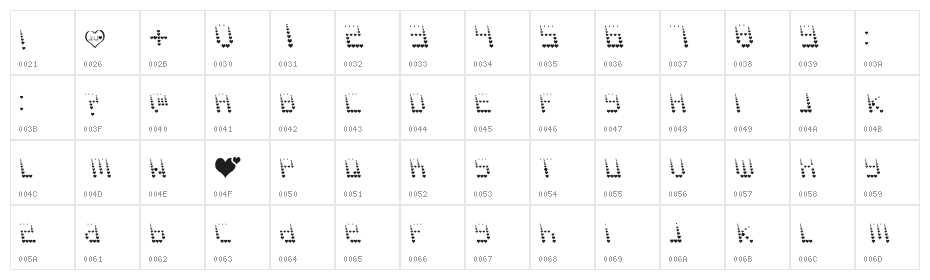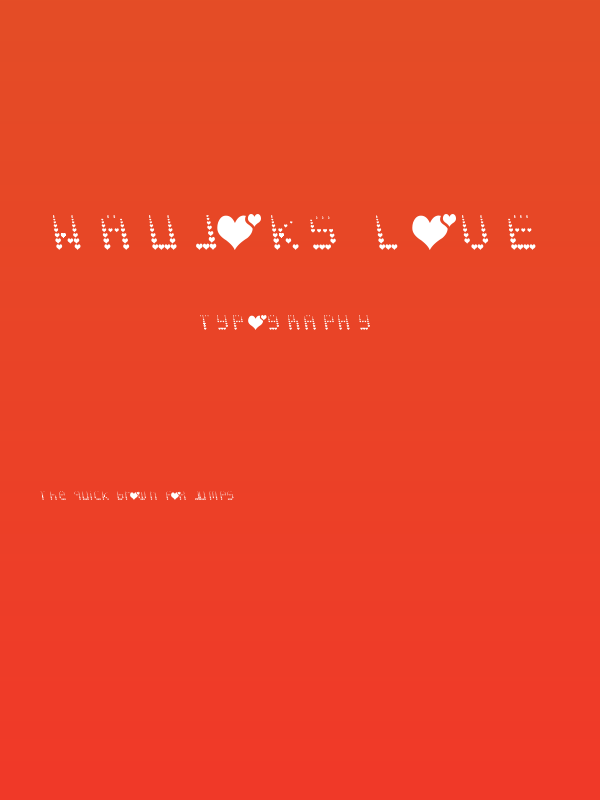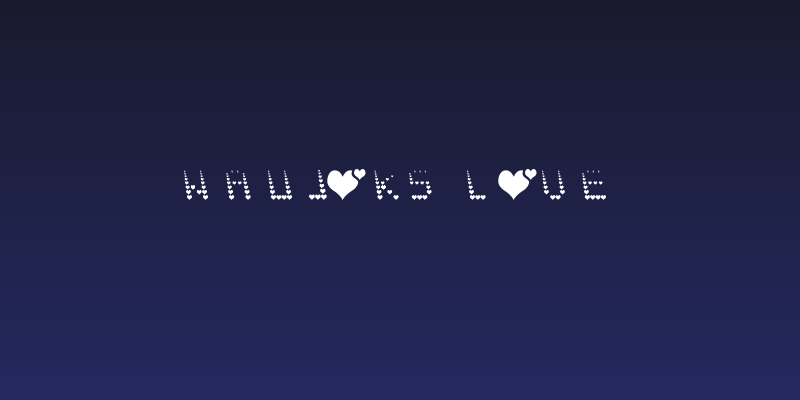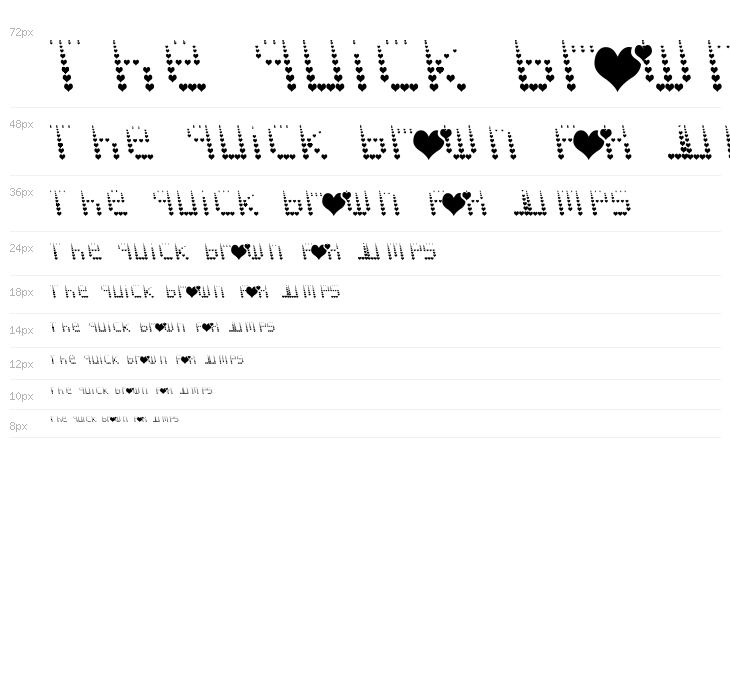
NAUJOKS LOVE Font
NAUJOKS LOVE Description
This playful and decorative font is composed entirely of small heart shapes forming each character. The letters and numbers are structured in a grid-like pattern, creating a pixelated effect with a romantic twist. The heart motif is consistent throughout, giving the font a cohesive and charming appearance. This unique style is eye-catching and ideal for projects that aim to convey love, affection, or a whimsical theme. The font's design is bold and stands out, making it suitable for various creative applications.
| Proposed Projects | Ideal for Valentine's Day cards, wedding invitations, love-themed posters, and playful graphic designs. |